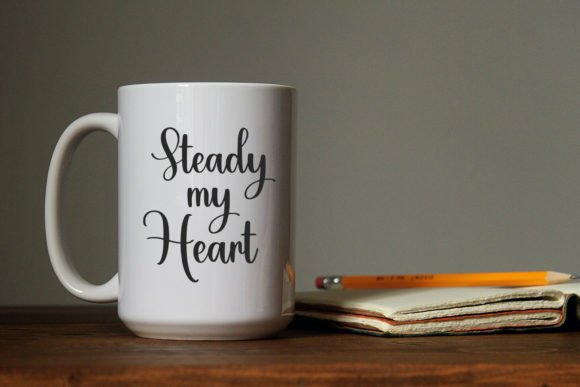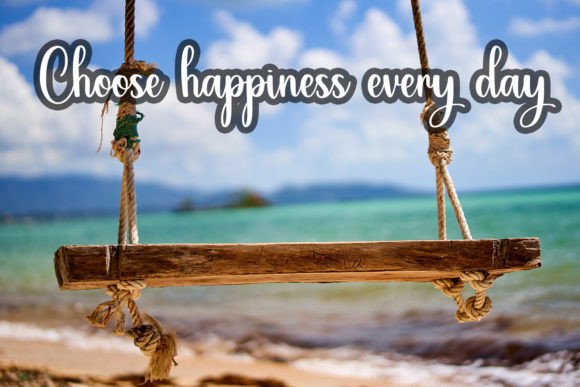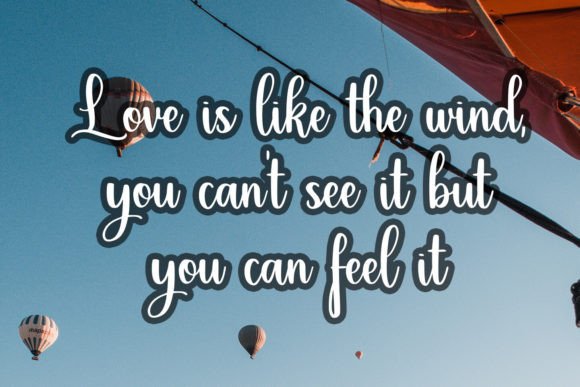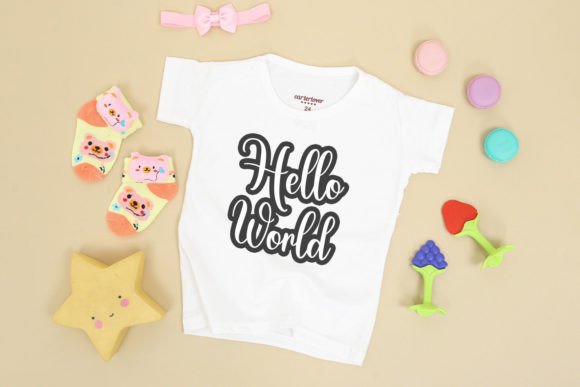
The Bougenvile Font: A Designer’s New Best Friend
I’ll never forget the time I was working on a project for a client who wanted a elegant, yet modern look. I had spent hours scouring the internet for the perfect font, but nothing seemed quite right. That was until I stumbled upon Bougenvile, a beautiful handwritten font that instantly caught my eye. In this article, I’ll share my experience with Bougenvile, its features, and how to make the most of it in your designs.
An Honest Review of Bougenvile
Bougenvile is an exquisite handwritten font that has quickly become a favorite in my design arsenal. Here’s what I love about it:
- ✨ Classy calligraphic influences that add a touch of sophistication to any project
- ✅ Contemporary and fresh feel that makes it perfect for modern designs
- 💫 Beautifully crafted letters that are both elegant and legible
- 🎨 Highly versatile and can be used for a wide range of projects, from branding to wedding invitations
While Bougenvile is an amazing font, it’s not perfect. Here are a few small quirks to keep in mind:
- 🤔 Some users may find the font a bit too ornate for certain projects, such as body text or long-form content
- ⚠️ The font may not be suitable for very small font sizes, as some details may get lost
- Experiment with OpenType features, such as glyphs and stylistic alternates, to add more personality to your text
The Story Behind Bougenvile
Bougenvile was designed by a talented typographer who wanted to create a font that was both elegant and modern. Inspired by the beauty of handwritten calligraphy, Bougenvile is the result of hours of careful craftsmanship and attention to detail.
| Font Name | Bougenvile Font |
| Author | Abodaniel |
| What is Bougenvile? | Bougenvile is a beautiful handwritten font with classy calligraphic influences and a modern feel. |
| Is Bougenvile suitable for body text? | While Bougenvile is a beautiful font, it may not be the best choice for body text due to its ornate nature. However, it’s perfect for headings, titles, and short-form content. |
| Is Bougenvile easy to read? | Yes, Bougenvile is a highly legible font, making it perfect for projects where readability is important. |